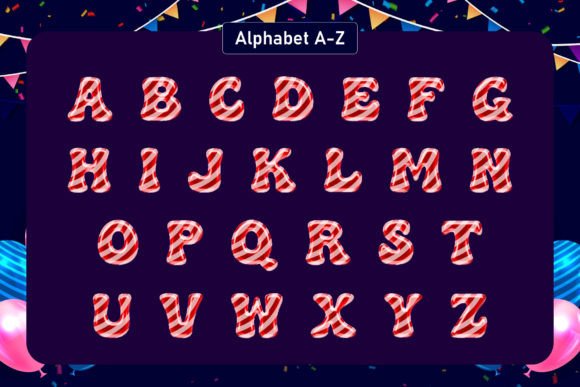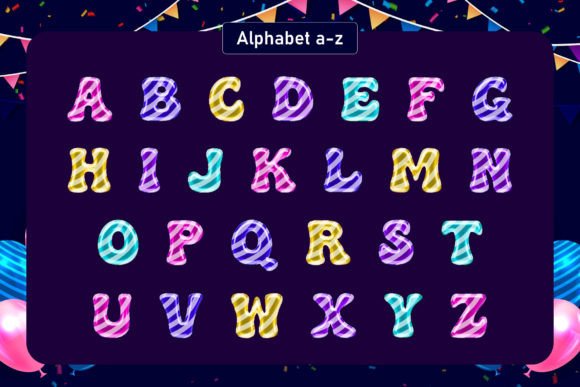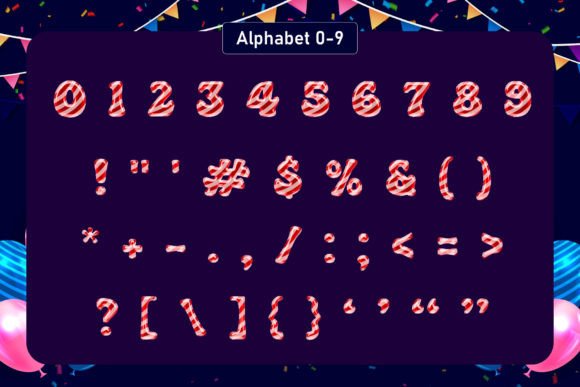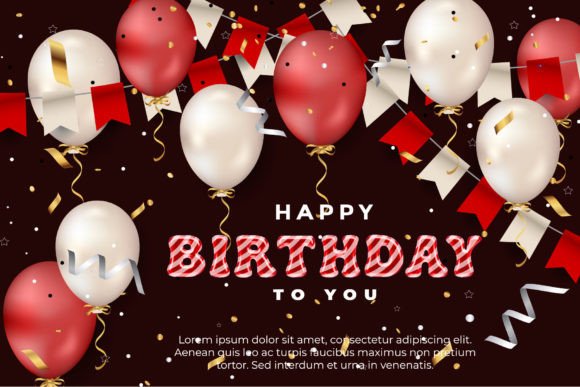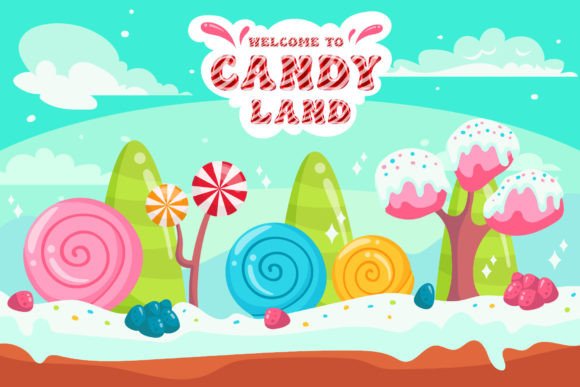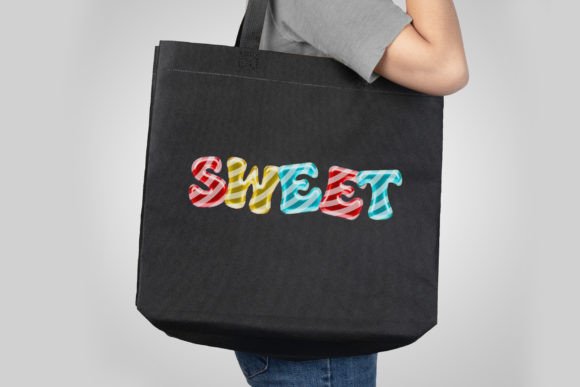
Get Ready to Pop with Creativity: Introducing the Balloon Groovy Font
You know that moment when you’re brainstorming ideas for a special occasion and everything just comes together in perfect harmony? The colors match, the words flow, and the overall vibe is just… groovy? That’s what we’re talking about with the Balloon Groovy Font. This adorable color font is designed to bring a smile to your audience’s faces and make your designs truly stand out.
Whether you’re creating invitations, social media posts, or greeting cards, the Balloon Groovy Font is the perfect addition to elevate your work. With its authentic feel and playful charm, you’ll be able to capture the essence of any celebration or event. As a designer, you’ll appreciate the versatility and compatibility of this font, which makes it easy to use with your favorite design tools like PhotoShop, Illustrator, and more.
Key Features of Balloon Groovy Font
- Unique Characteristics: The Balloon Groovy Font features a distinctive, playful style with rounded shapes and dynamic lines, making it ideal for creative and whimsical designs.
- Kerning and Ligatures: The font includes advanced kerning and ligature pairs, ensuring smooth text rendering and a polished appearance.
Designer Review: Balloon Groovy Font
Overall, I think the Balloon Groovy Font has some great qualities, but it also falls short in some areas. Let’s start with what works well: ✨ The font’s playful, swirly design is perfect for creating a fun, carefree atmosphere. It’s ideal for projects like party invitations, social media graphics, or even a children’s book cover. The font’s unique style is sure to grab attention and add a touch of whimsy to any design.
However, there are some limitations to consider: ⚠️ The font can be quite challenging to read at smaller sizes, and the swirling patterns can make it difficult to pair with other fonts. Additionally, the font’s quirky design may not be suitable for more formal or professional projects.
Here are some specific things to keep in mind when using the Balloon Groovy Font:
- Pair it with simpler fonts to avoid visual clutter.
- Use it at larger sizes to ensure readability.
- Avoid using it for body text, as it can be overwhelming.
Overall, I think the Balloon Groovy Font is a great addition to any designer’s toolkit, but it’s essential to use it thoughtfully and with consideration for the project’s tone and audience.
Tips for Getting the Most Out of Balloon Groovy Font
Use Balloon Groovy Font to add a playful touch to your designs. This font is perfect for creating eye-catching headlines, titles, and text overlays.
Experiment with different font sizes, colors, and combinations to create a unique look that suits your design style.
Use Balloon Groovy Font in conjunction with other playful fonts or graphics to create a cohesive and engaging design.
Alternatives to Balloon Groovy Font
Great Vibes is a modern, elegant script font that can be used for a variety of purposes such as invitations, posters, and social media graphics. It is perfect for designers who want to add a touch of sophistication to their designs.
Great Vibes is more refined and elegant compared to Balloon Groovy Font, which is more playful and casual. Great Vibes is ideal for formal events, while Balloon Groovy Font is better suited for casual and fun designs.
Q: Does the Balloon Groovy Font include any special features or ligatures?
Yes, the Balloon Groovy Font includes a range of special features and ligatures to enhance your typographic experience. These include contextual alternates, discretionary ligatures, and swashes. You can access these features using your design software’s font menu or by using the OpenType features in your font manager.